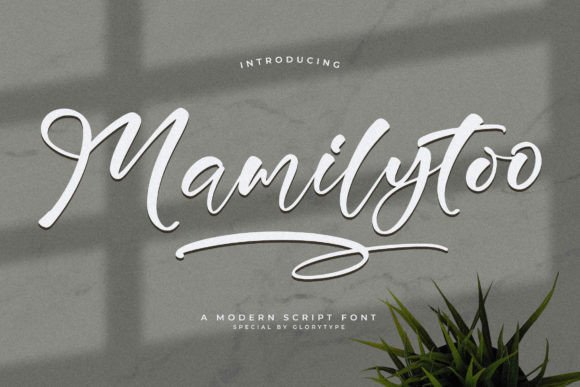
Unveil the Elegance of Mamilytoo: A Script Font That Captures Hearts
In a world of digital expression, your words deserve a touch of grace and sophistication. Introducing Mamilytoo, a modern script font that will transform your designs into captivating works of art. Let your imagination run wild as you explore this enchanting script, crafted with care by the talented team at Glorytype Studio.
Mamilytoo is not just a font; it's an invitation to elevate your creativity. Whether you're a seasoned designer or just starting your design journey, Mamilytoo has something special to offer. Its versatility and charm will leave you spellbound, making it the perfect choice for a wide range of projects.
Picture this: a wedding invitation adorned with Mamilytoo's delicate curves, conveying the joy and romance of the special day. Or perhaps, a brand logo that exudes elegance and professionalism, thanks to Mamilytoo's timeless style. Unleash your inner artist and let Mamilytoo add a touch of enchantment to your homeware designs, product packaging, mugs, posters, and more.
Mamilytoo's applications are endless, making it a must-have for any creative toolbox. Its beauty will uplift your designs, adding a touch of whimsy and charm that will captivate your audience. So, embark on a creative journey with Mamilytoo, and watch your designs flourish into masterpieces that leave a lasting impression.
Features That Make Mamilytoo the Perfect Choice:
- Exquisite Script Design: Mamilytoo's graceful lines and elegant curves will add a touch of sophistication to any project.
- Versatile Applications: Ideal for logos, branding, homeware designs, packaging, quotes, posters, and more.
- Perfect for Special Occasions: Create stunning wedding invitations, greeting cards, and labels that exude charm and personality.
- Photography and Watermark Perfection: Add a unique touch to your photos and watermarks, making them stand out from the crowd.
- Unleash Your Creativity: Mamilytoo is the perfect tool to bring your creative visions to life.